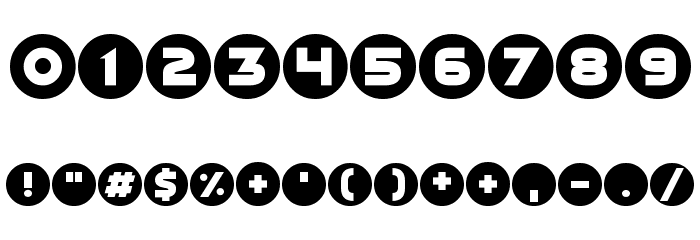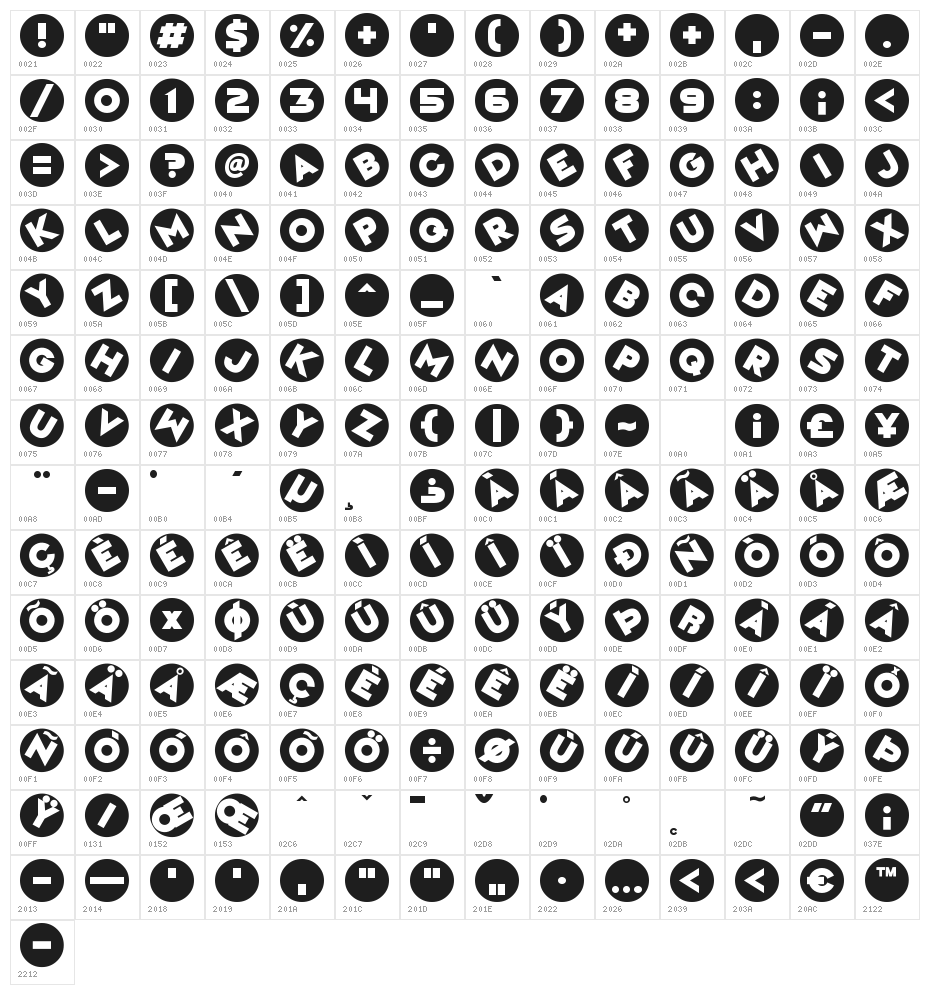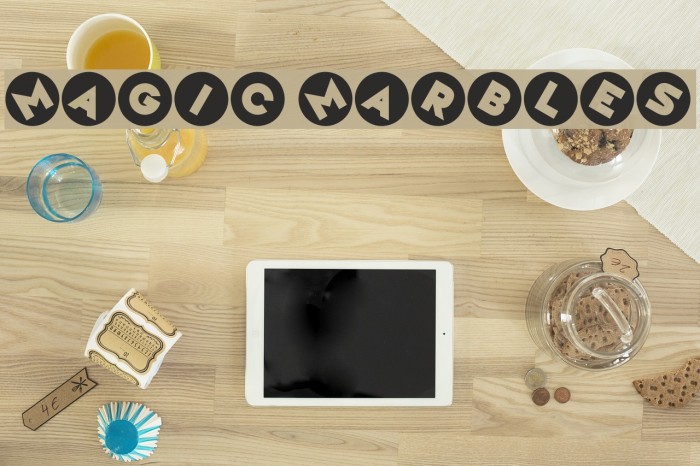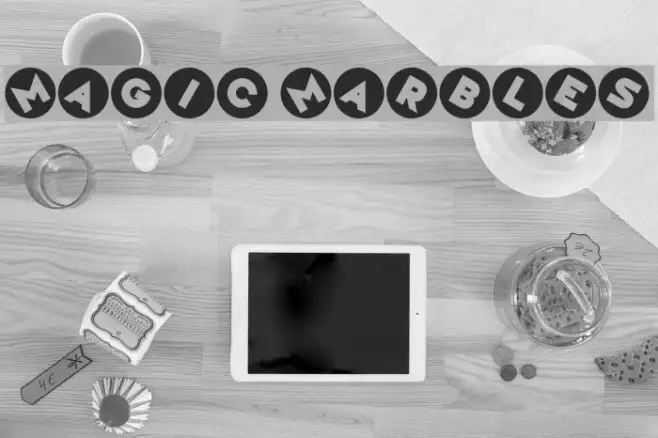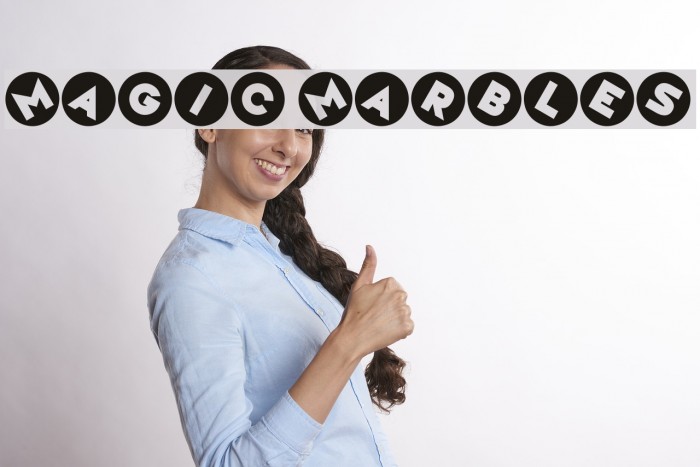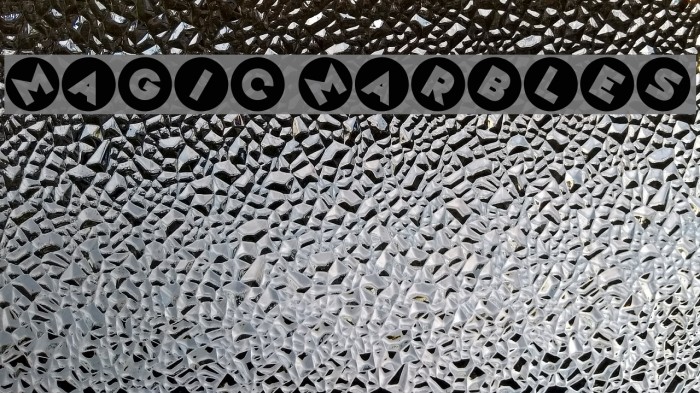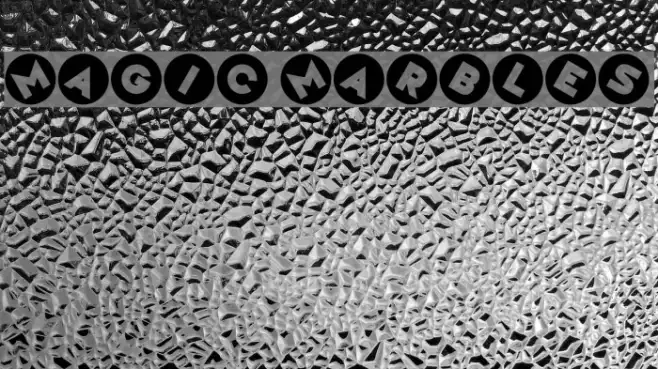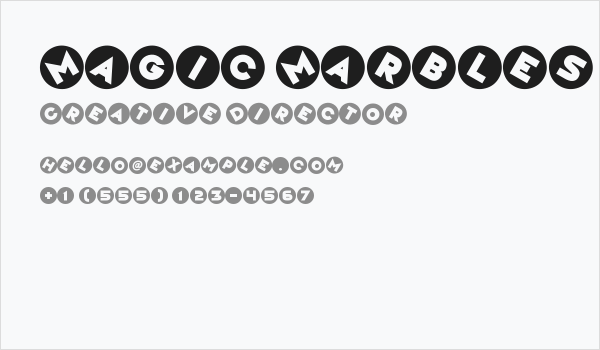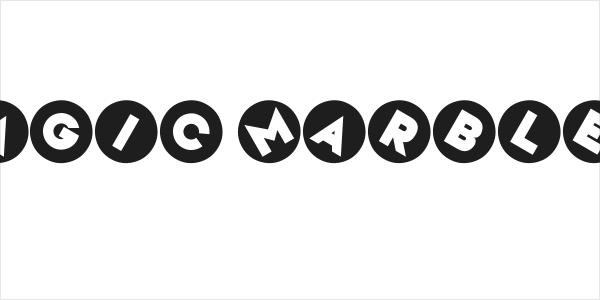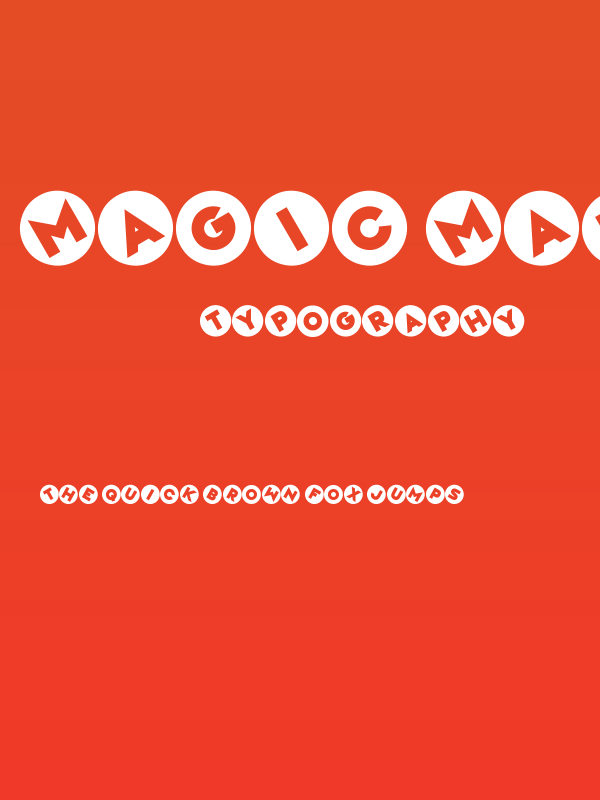
Magic Marbles Font
Magic Marbles Description
This playful and bold font features characters enclosed within circular shapes, creating a distinctive and eye-catching appearance. The letters are uppercase and lowercase, with numerals and special characters, all maintaining a consistent circular boundary. The style is geometric and modern, with a strong emphasis on symmetry and balance. The characters are white against a black circular background, enhancing readability while adding a unique visual flair. This font's design is both fun and functional, making it suitable for a variety of creative applications.